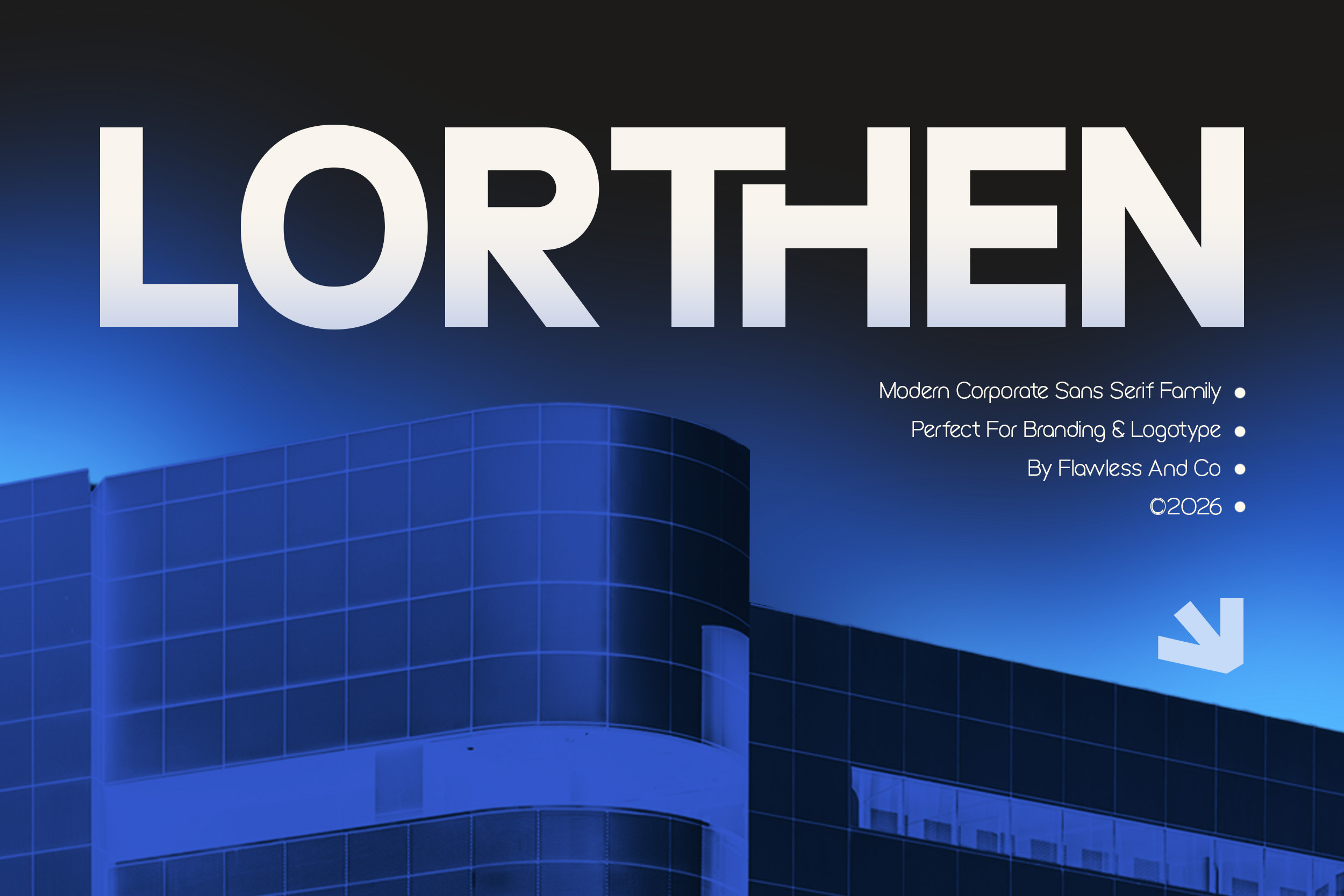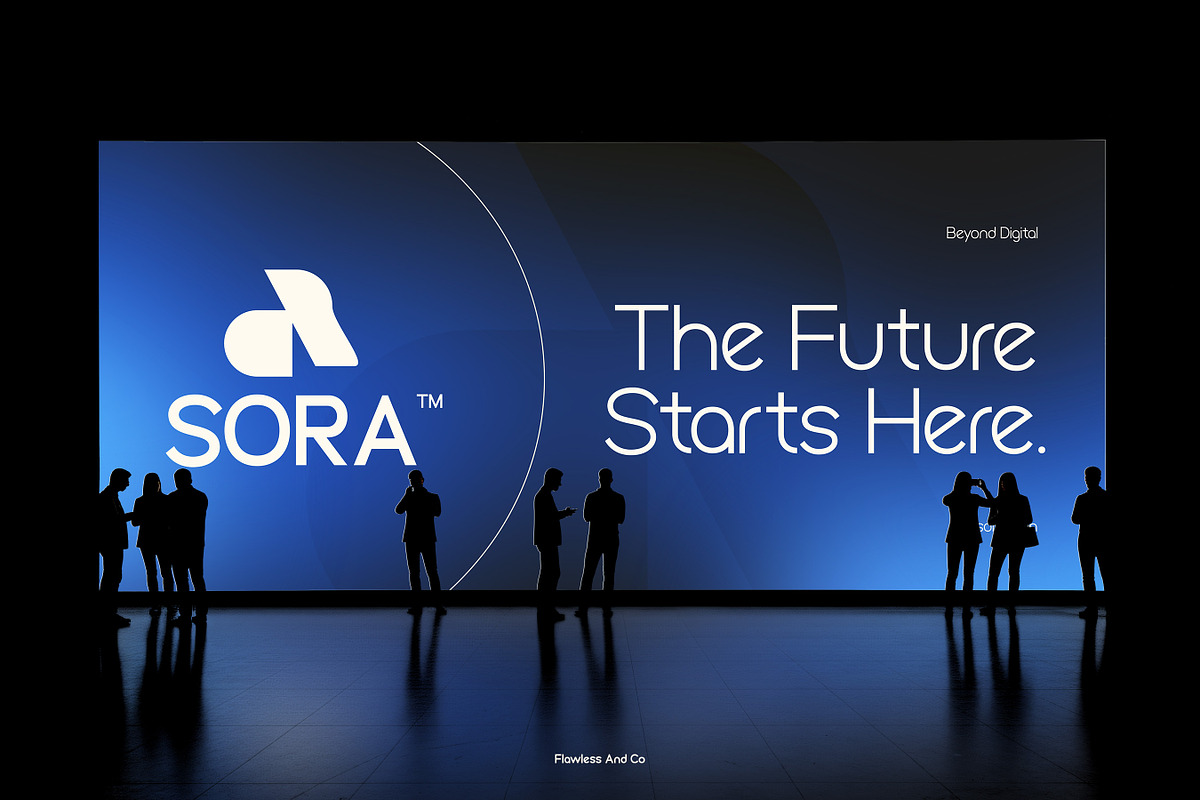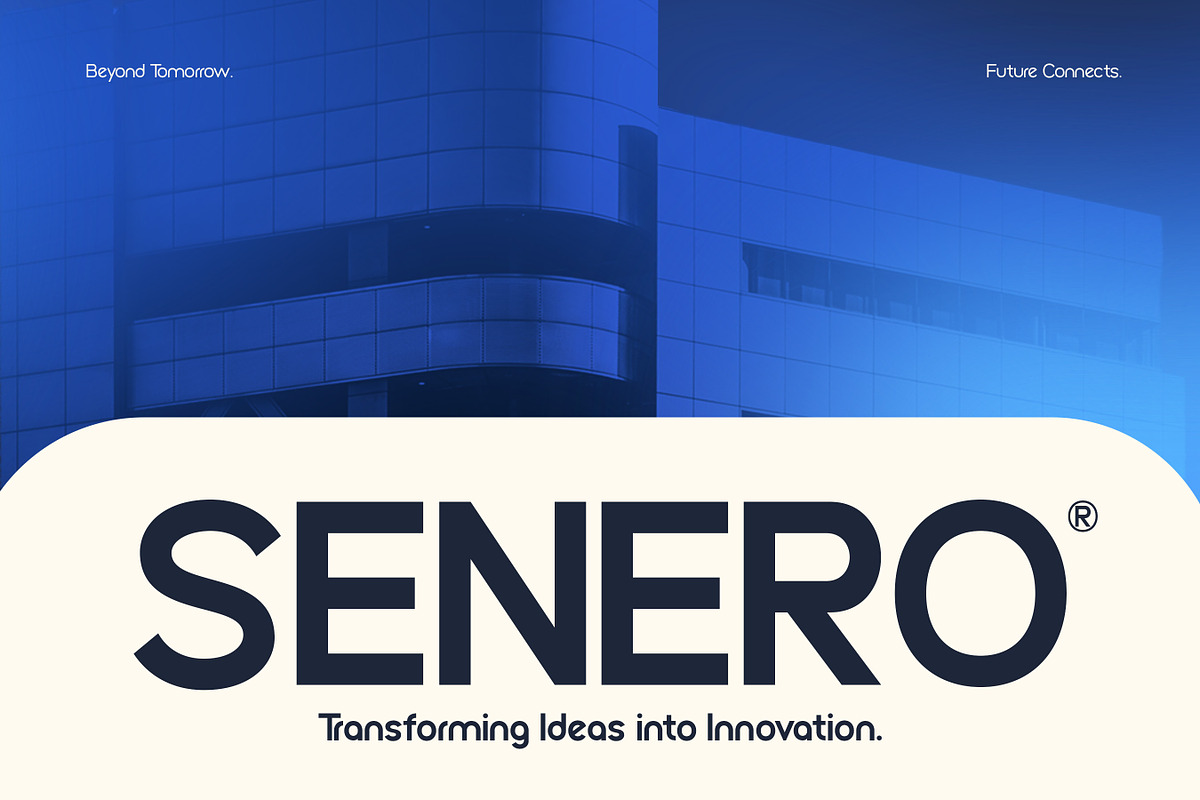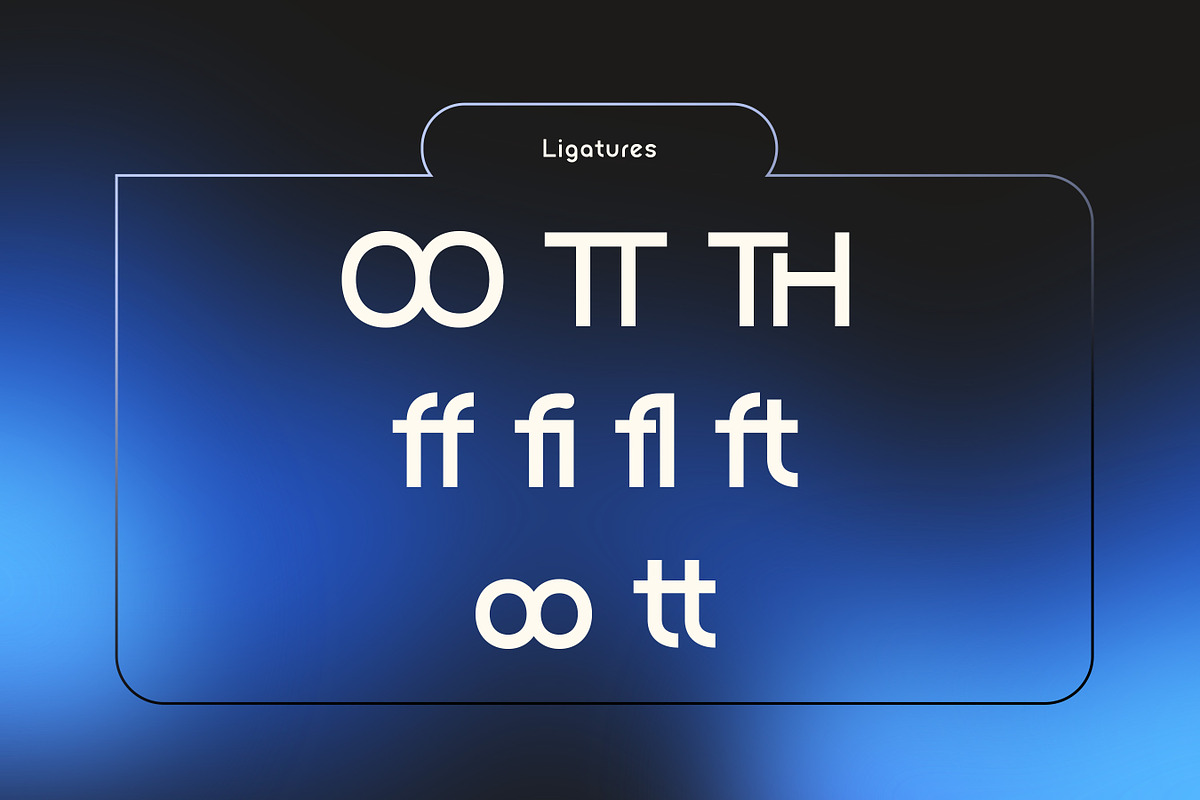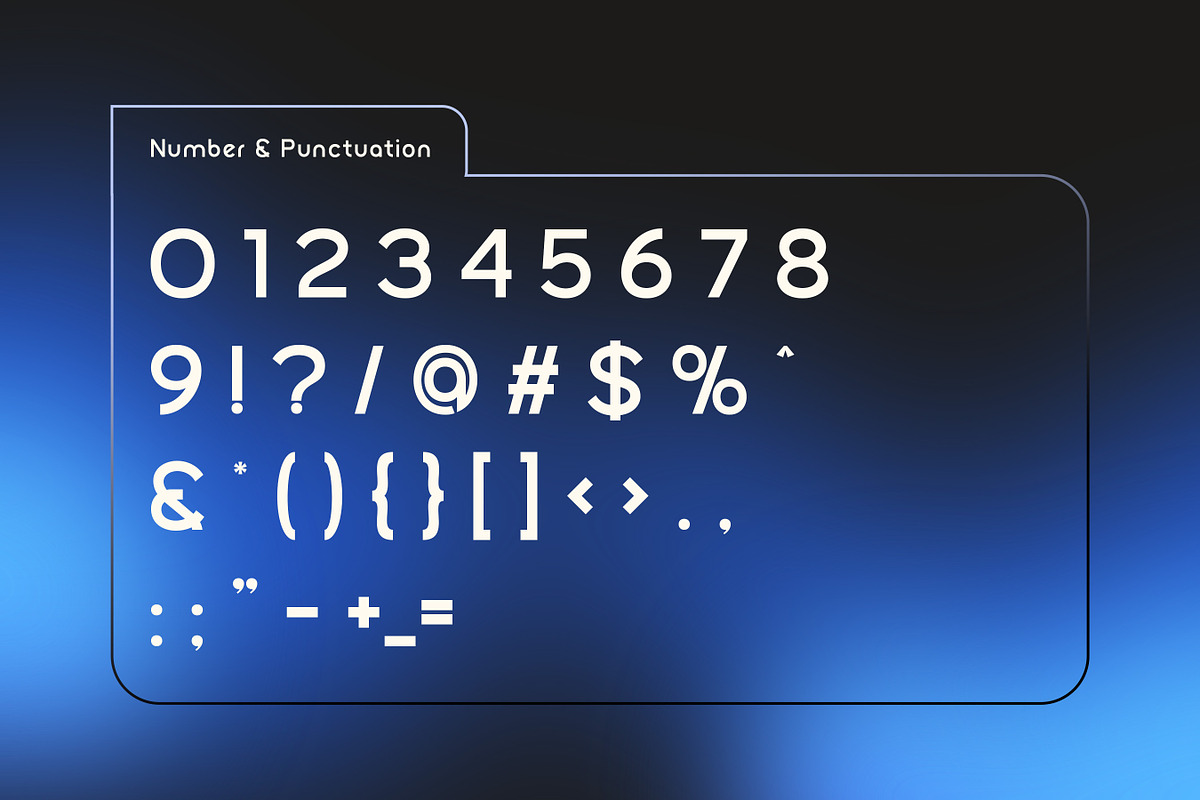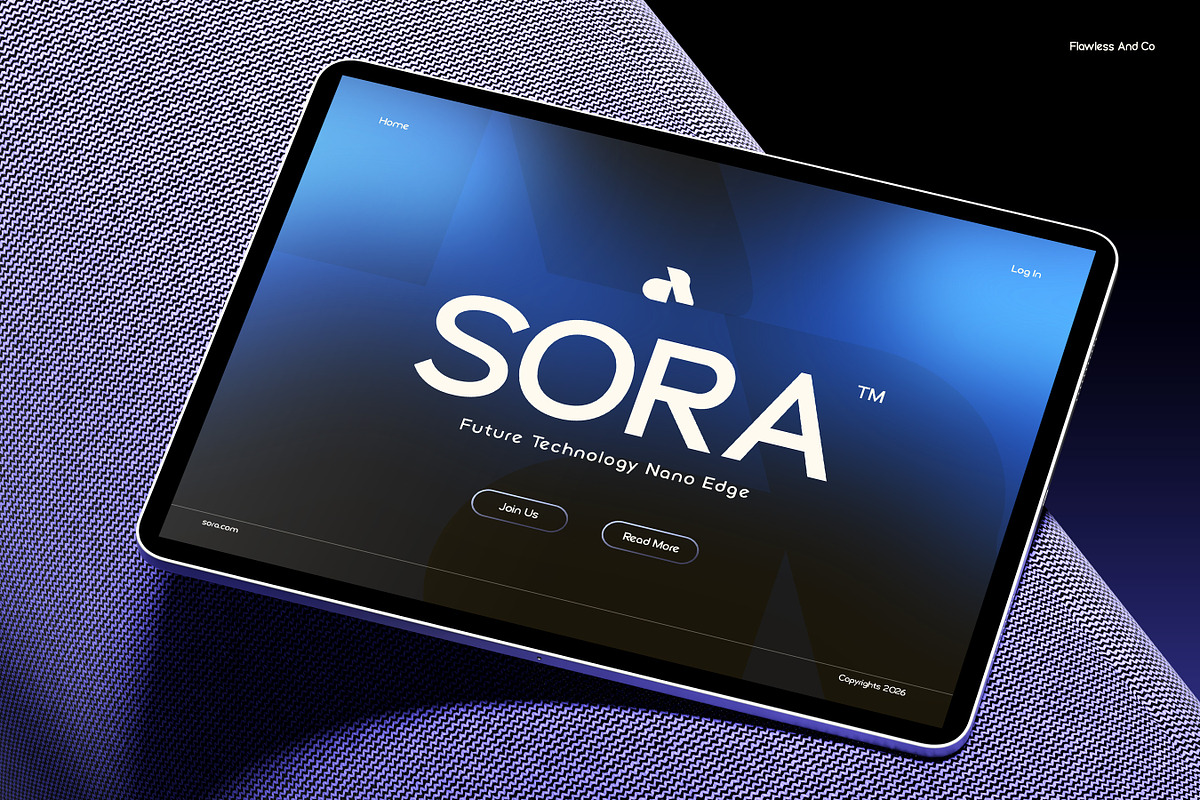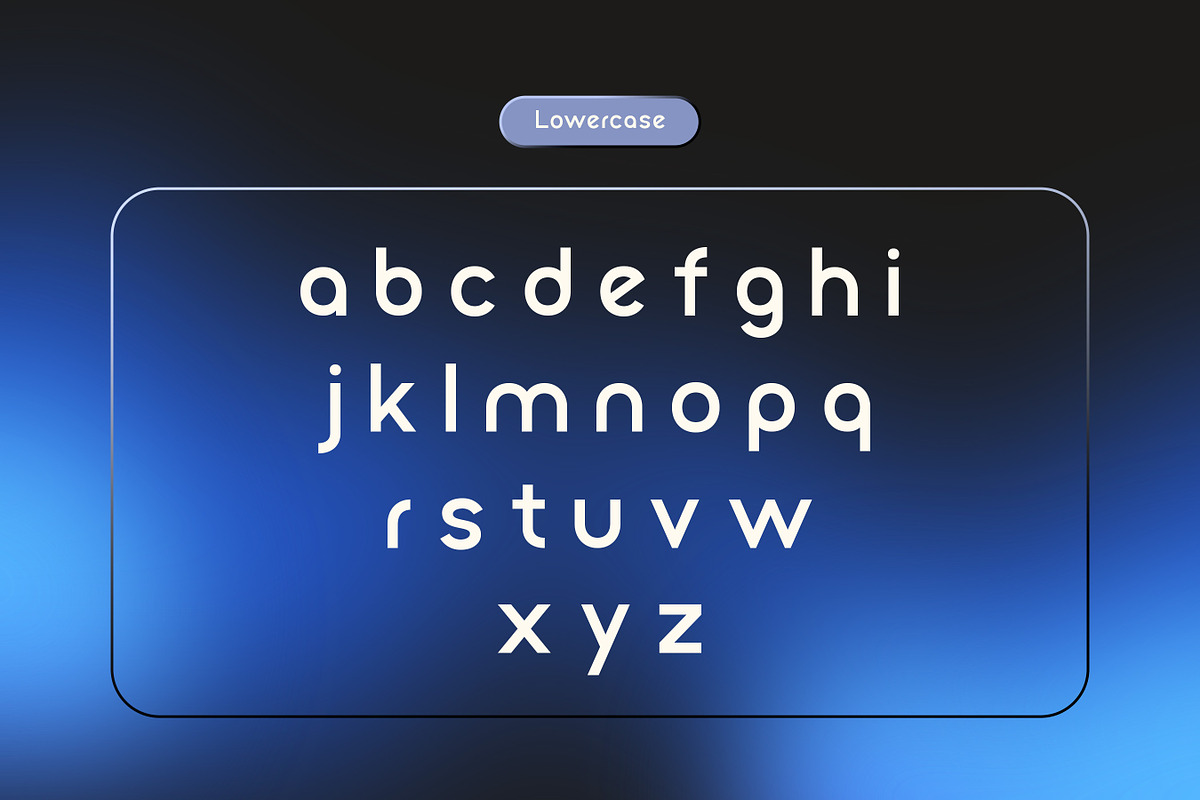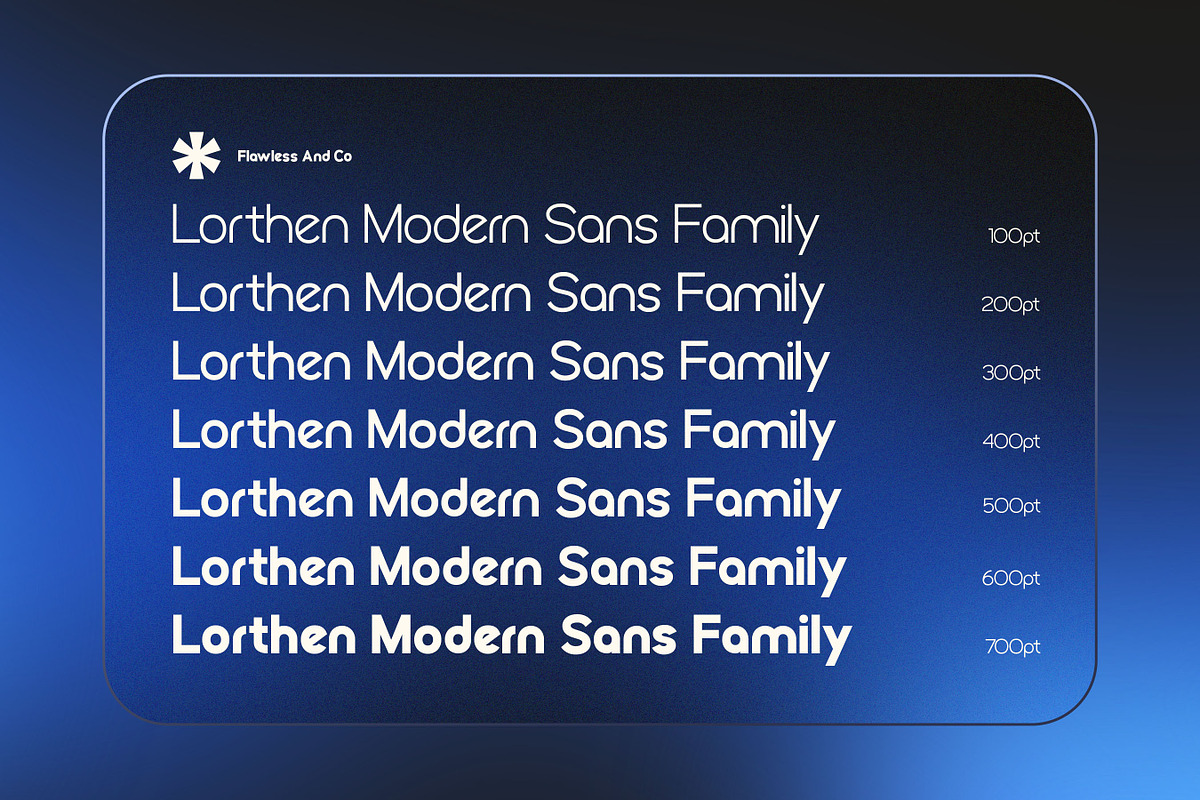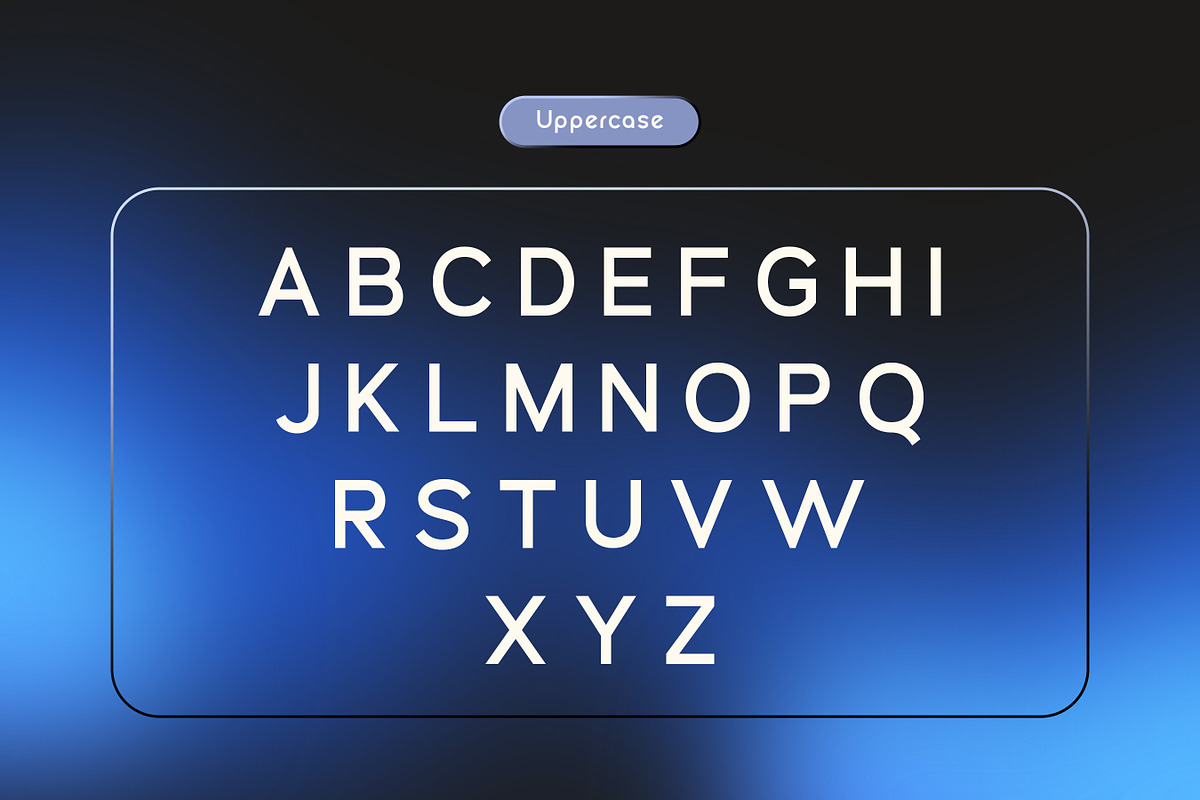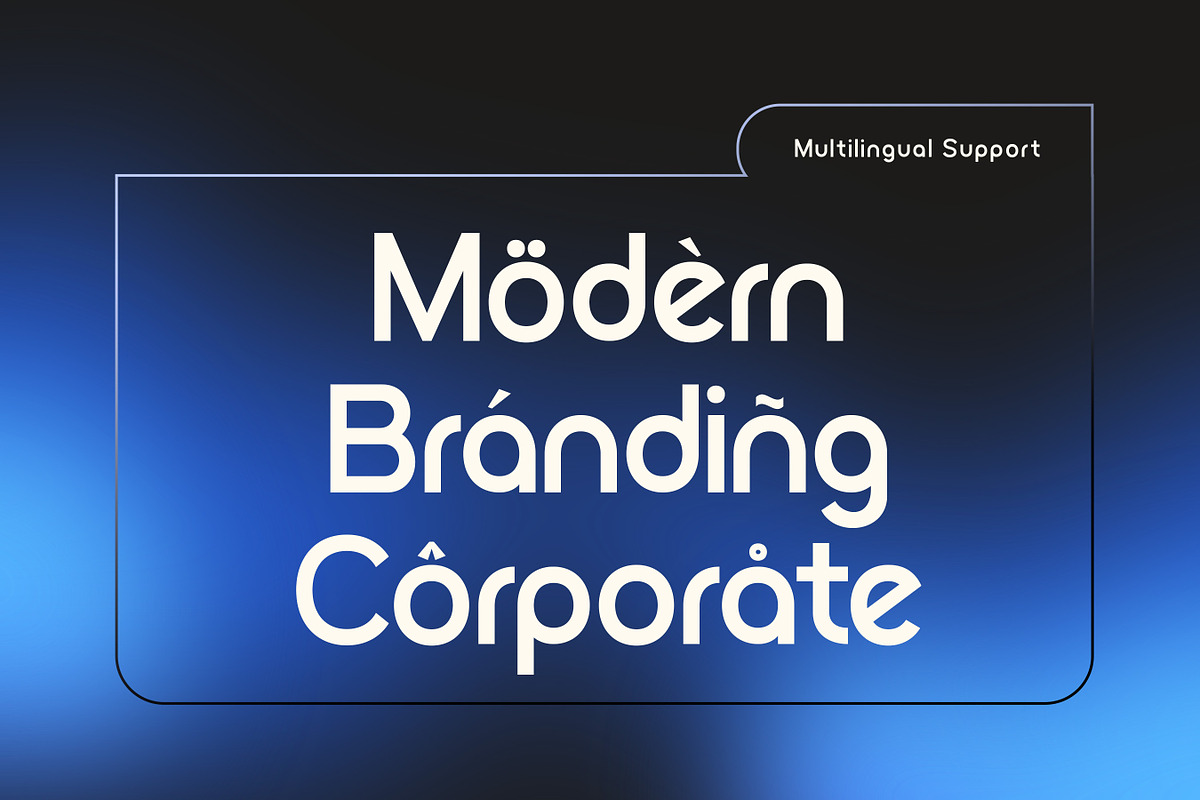
Lorthen - Corporate Sans Family Font
Lorthen - Corporate Sans Serif Family Font
Lorthen is a modern corporate sans serif family created for brands that value professionalism, precision, and timeless design. Featuring clean letterforms, balanced geometry, and a comprehensive range of weights, Lorthen offers the perfect foundation for building clear, consistent, and sophisticated visual communication. Its contemporary appearance allows every project to feel polished, credible, and effortlessly modern.
Alternates & Ligatures
Who should use Lorthen?
Lorthen is designed for branding specialists, UI/UX designers, creative agencies, startups, corporations, and entrepreneurs who need a professional sans serif family with outstanding versatility and readability. It's the ideal choice for projects that require a clean, trustworthy, and contemporary visual language.
Suitable:
Corporate branding and identity systems
Business presentations and annual reports
Technology and SaaS companies
Website and application interfaces
Editorial and publication design
Logo and wordmark creation
Marketing and advertising campaigns
Professional typography systems